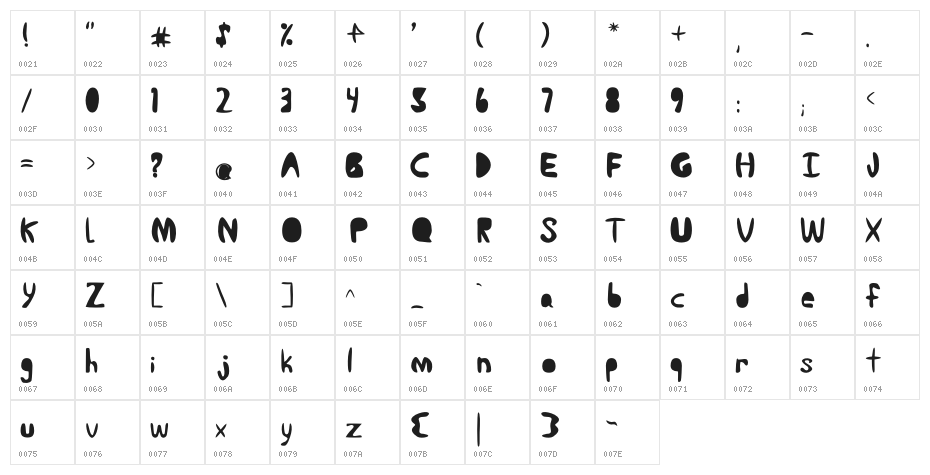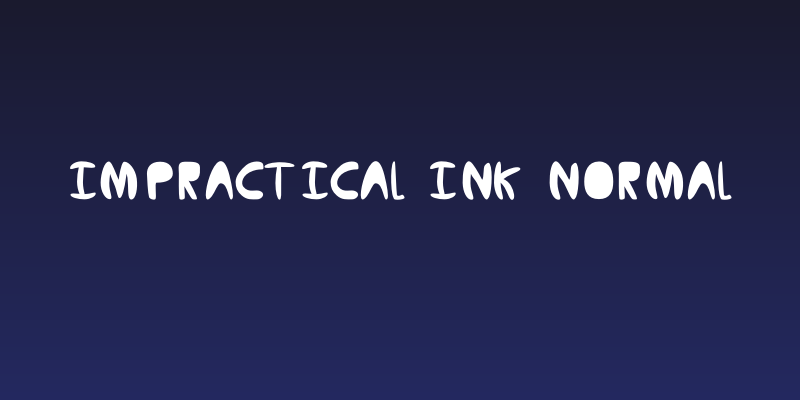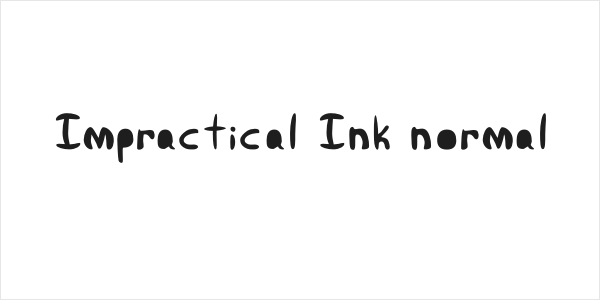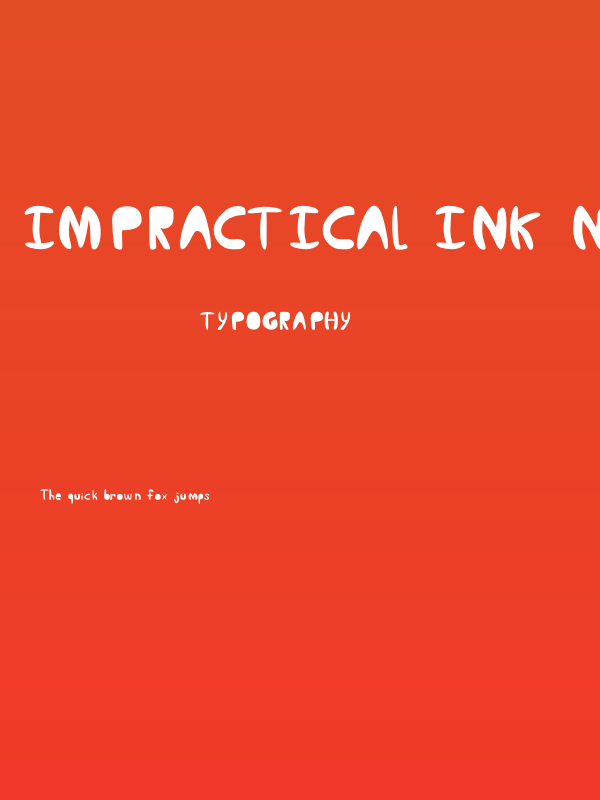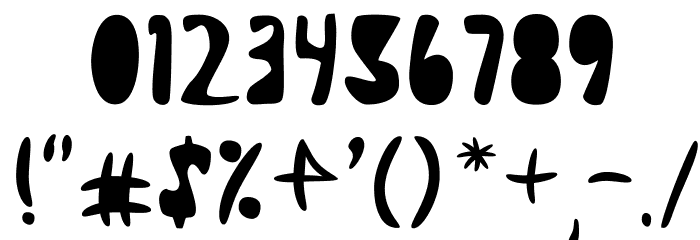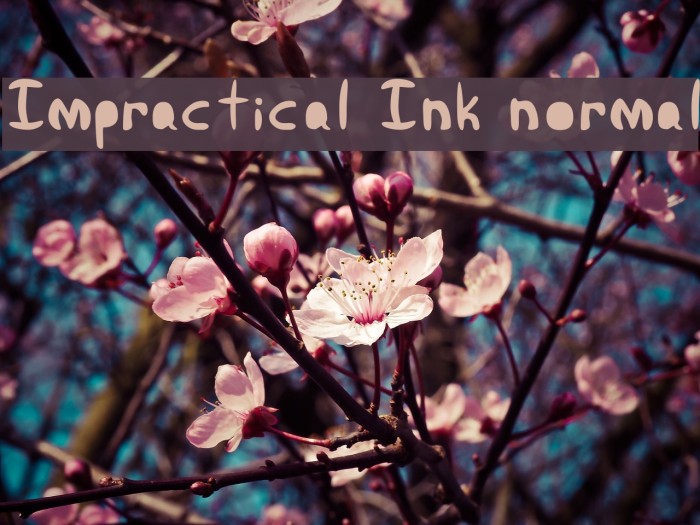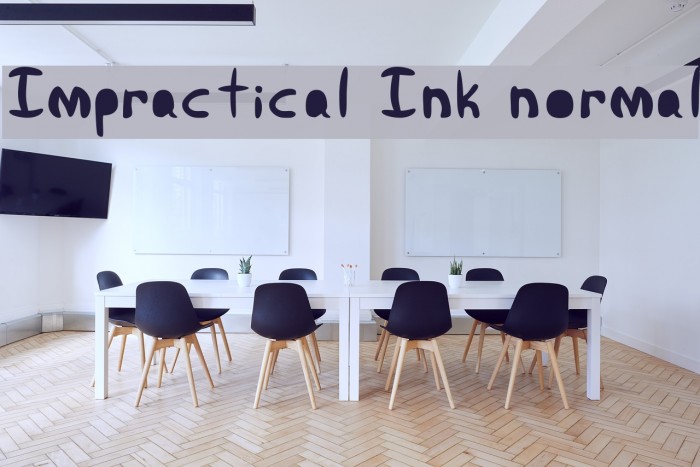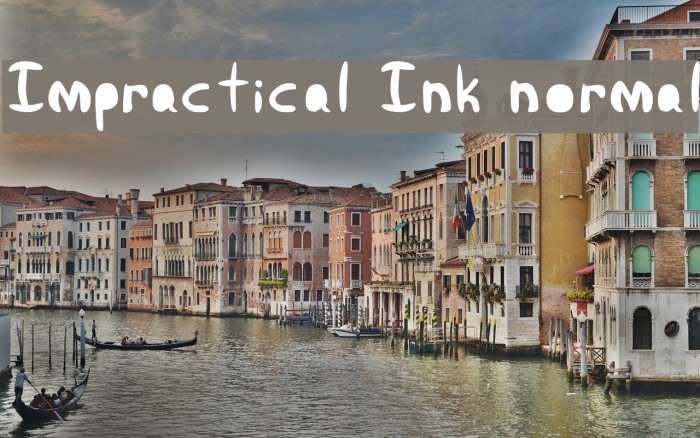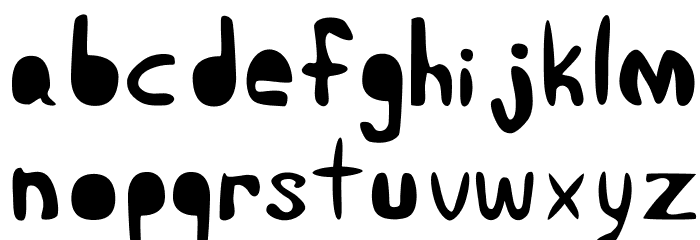
Impractical Ink normal Font
Impractical Ink normal Description
This playful and bold font features a unique, hand-drawn style with irregular, organic shapes that give it a whimsical and artistic feel. The characters are rounded and slightly uneven, adding to the casual and informal appearance. The uppercase and lowercase letters maintain a consistent style, with a noticeable thickness that makes them stand out. Numbers and special characters follow the same design principles, ensuring a cohesive look throughout. The font's distinctive style makes it ideal for projects that require a fun and creative touch.
| Proposed Projects | Ideal for children's books, creative posters, playful branding, and artistic invitations. |